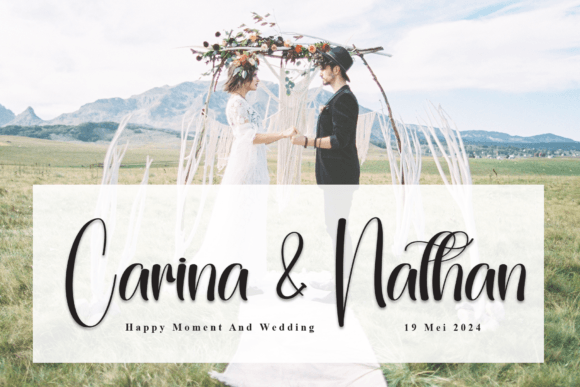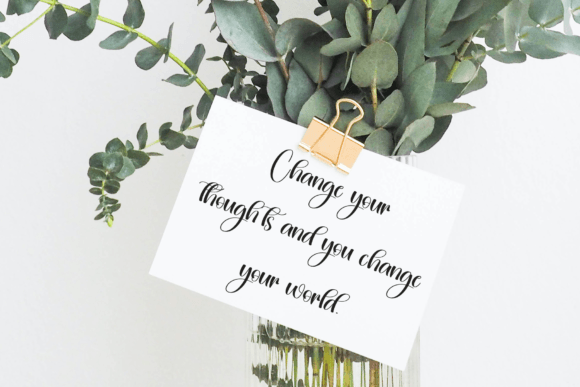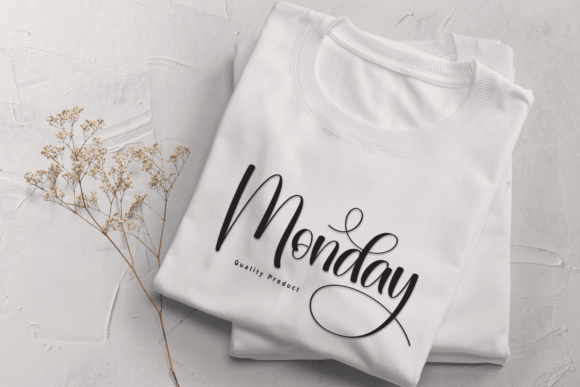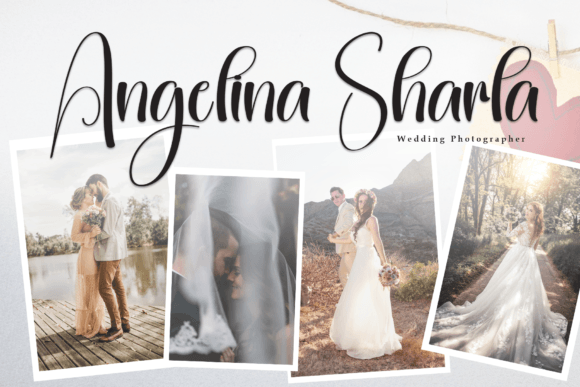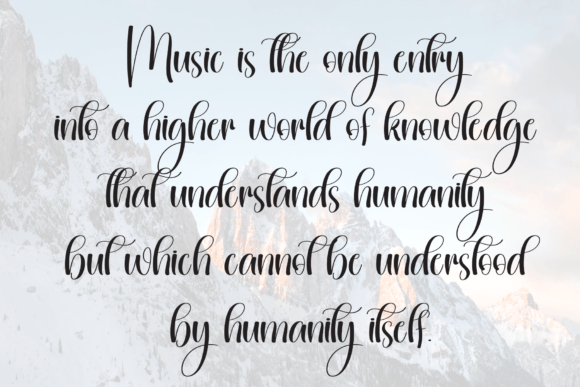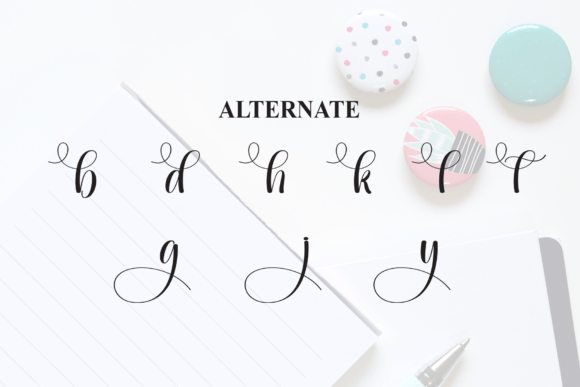
Introducing Badge Font: Elevate Your Designs with Elegance and Sophistication
In the world of typography, few fonts manage to convey the perfect blend of style, elegance, and versatility. Badge Font is one such gem that has captured the hearts of designers and crafters alike. This stunning script font is designed to add a touch of sophistication and whimsy to a wide range of design projects, from wedding invitations and greeting cards to logos and business cards.
The Charm of Badge Font
Badge Font is a beautifully crafted script font that exudes elegance and refinement. Its flowing lines, delicate strokes, and intricate details make it a perfect choice for designs that require a personal touch. Whether you’re creating wedding invitations, thank you cards, or quotes, Badge Font adds a level of sophistication that elevates your designs from ordinary to extraordinary.
Key Features of Badge Font
- Stylish and Elegant: Badge Font boasts a stylish and elegant design that is sure to impress. Its unique blend of classic and modern elements makes it perfect for a wide range of design projects.
- Versatile: From wedding invitations and greeting cards to logos and business cards, Badge Font can be used in a variety of design projects that require a handwritten touch.
- Handwritten Touch: Badge Font’s script design gives it a warm, personal feel that is perfect for designs that require a human touch.
- Easily Readable: Despite its elegant design, Badge Font is easily readable, making it perfect for body text and captions.
Use Cases for Badge Font
Badge Font’s versatility makes it suitable for a wide range of design projects. Here are some use cases where Badge Font truly shines:
- Wedding Invitations: Add a touch of elegance and sophistication to your wedding invitations with Badge Font.
- Greeting Cards: Create beautiful greeting cards for special occasions like birthdays, anniversaries, and holidays.
- Logos and Branding: Use Badge Font to create stunning logos and branding materials that reflect your business’s personality and style.
- Business Cards: Elevate your business cards with Badge Font’s elegant design and add a personal touch to your professional networking.
- Quotes and Posters: Create eye-catching quotes and posters with Badge Font’s stylish and elegant design.
Tips for Using Badge Font
Badge Font is a stunning script font that is sure to elevate your designs with its elegance and sophistication. Its versatility, readability, and stylish design make it perfect for a wide range of design projects. Whether you’re a designer or crafter, Badge Font is a must-have font that will add a personal touch to your creations. So why wait? Download Badge Font today and take your designs to the next level!